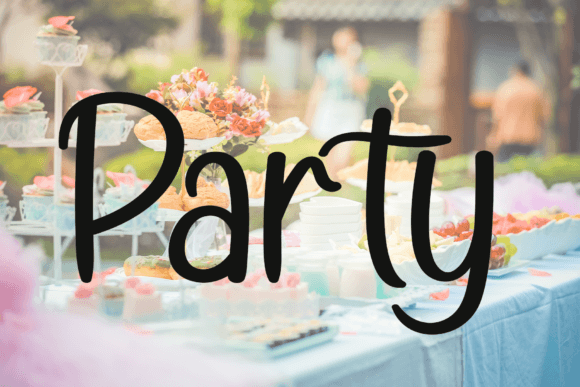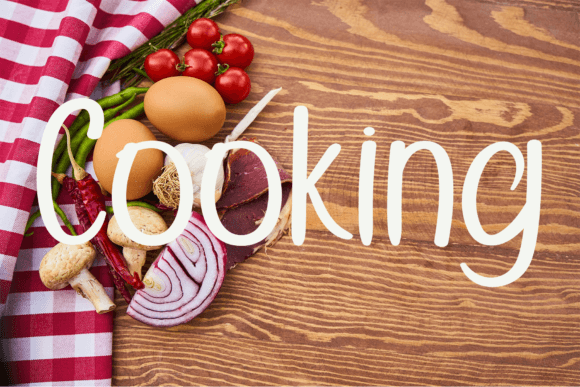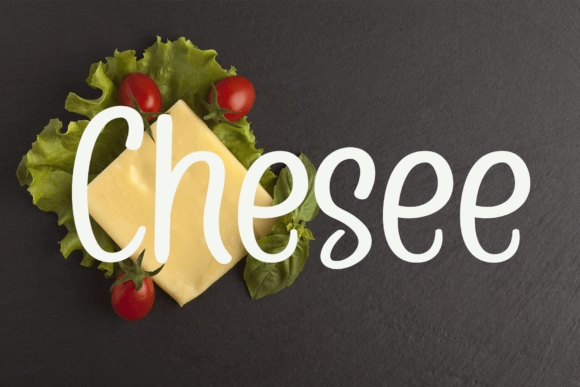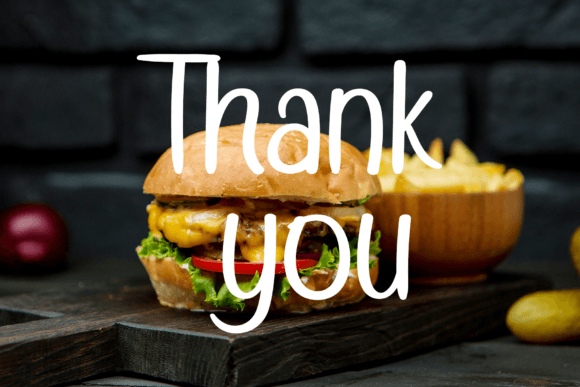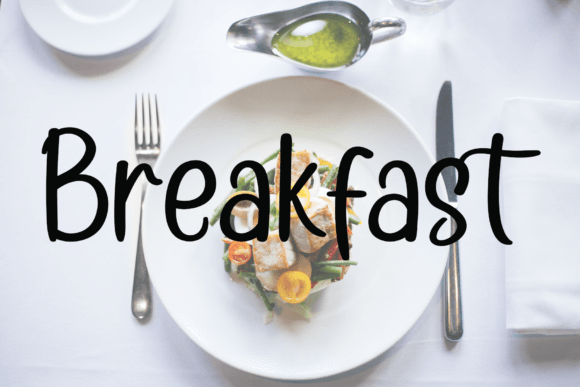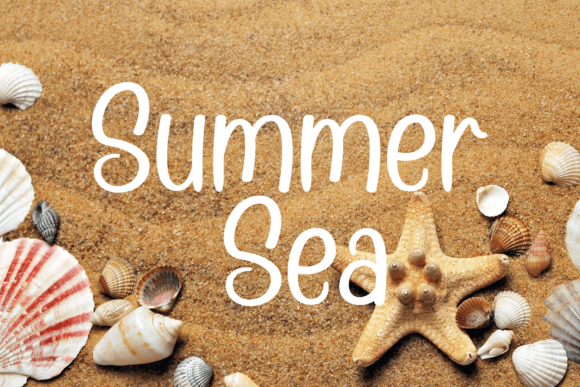
Hamburger Font
About Hamburger Font
Hamburger, a sweet and beautiful handwritten font, brings a delightful touch to your design projects. With characters that gracefully dance along the baseline, this font adds a spark of luxury to any creative endeavor.
The charm of Hamburger lies in its handwritten style, exuding sweetness and beauty. The characters flowing dynamically along the baseline give the font a lively quality, making it ideal for projects that seek a touch of luxury.
Consider employing Hamburger across a variety of design applications, from branding and product packaging to invitations and social media graphics. Its versatile nature allows it to seamlessly adapt to different contexts, enriching each project with a touch of liveliness and approachability.
The handwritten elegance of Hamburger extends seamlessly to both digital and print materials. Whether enhancing the visual appeal of a website or adding flair to printed materials like invitations and posters, Hamburger stands out as a font that elevates the overall aesthetic.
In essence, Hamburger is more than just a font; it’s a design element that injects your projects with a sweet and luxurious touch. Embrace the charm of Hamburger and let it add a spark of beauty to your design creations, making them stand out with an air of sophistication.